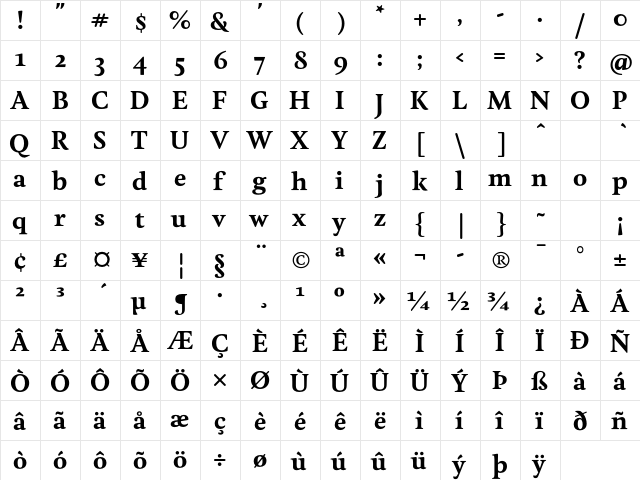
Feijoa Bold
Design Context for Feijoa Typeface
Feijoa offers clean, dependable letterforms without strong stylistic allegiance, making it a practical choice for designers who need flexibility. Its bold stroke weight gives it real presence on the page.
Pro Tip: Use Feijoa in both headline and body roles to test its range before committing to a single application.